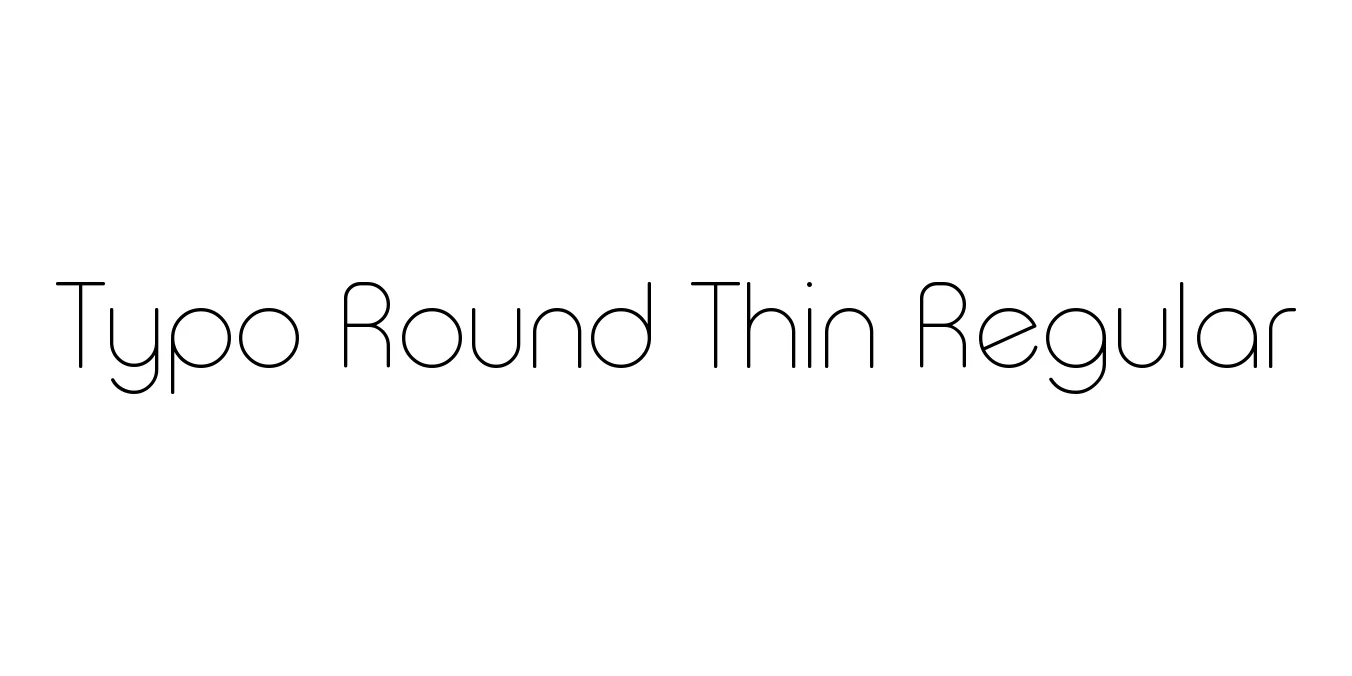
Typo Round Thin Regular
Designed by Studio Typo
Typo Round Thin Regular is a contemporary geometric typeface meticulously crafted by Studio Typo. This font is characterized by its exceptionally smooth, rounded terminals and a minimalist structure that emphasizes clarity and modern aesthetics. The thin weight provides an elegant, airy quality, making it a favorite for designers seeking a sophisticated yet approachable look for digital and print media.
As part of the broader Typo Round family, the Thin Regular variant excels in high-resolution environments where its delicate lines can truly shine. Its circular design language reflects a sense of friendliness and fluidity, breaking away from the rigidity of traditional sans-serifs while maintaining professional structural integrity. It is widely used for projects that require a clean, uncluttered, and forward-thinking visual identity.
Typo Round Thin Regular Best Uses
Ideal for clean, modern user interfaces and light header text.
Perfect for minimalist logos and tech-oriented brand identities.
Excellent for high-end fashion or lifestyle magazine headlines.
Great for hero sections and lightweight navigation elements.